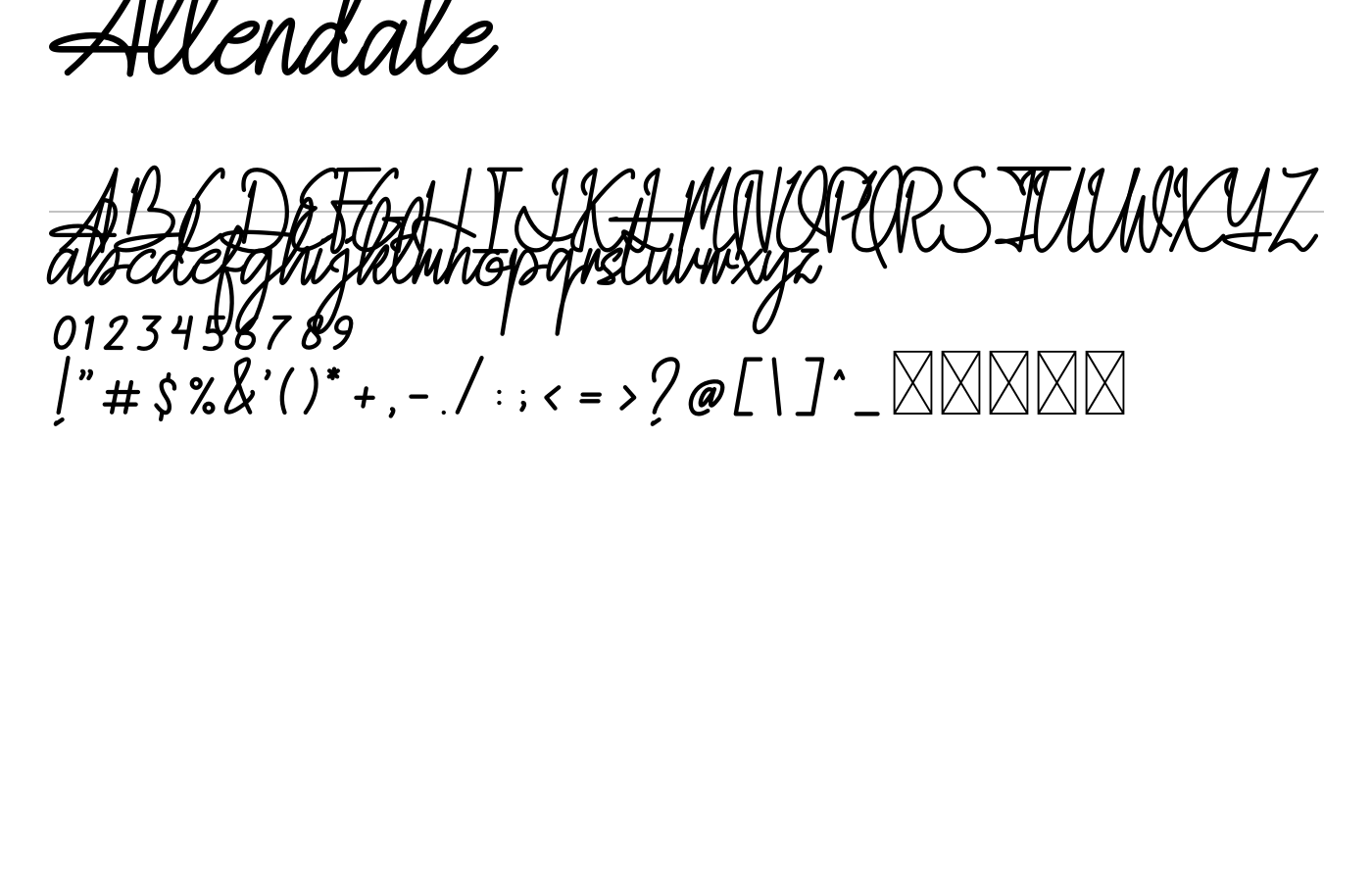
Allendale is a delicate and stylish script font with a handwritten feel, featuring slender, flowing strokes that create an elegant and personal touch. Its tall, narrow letterforms and consistent stroke weight make it perfect for branding, invitations, and any design that seeks a refined yet approachable look. This font works best in headings or decorative text where a graceful, sophisticated appearance is desired.
Allendale Font